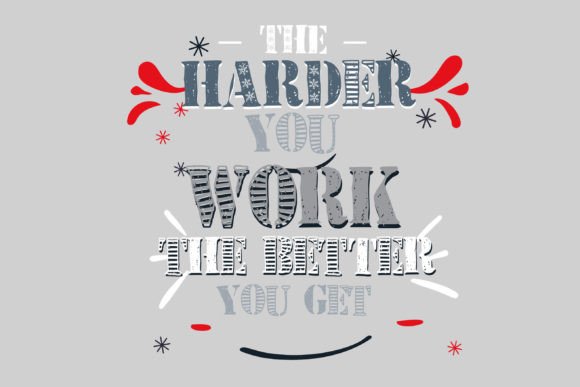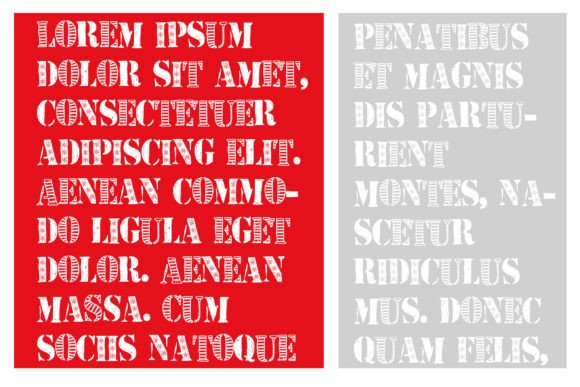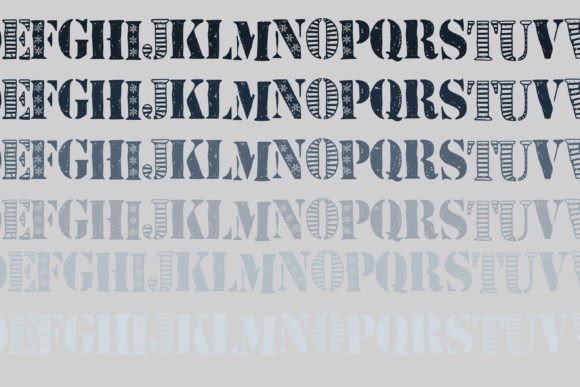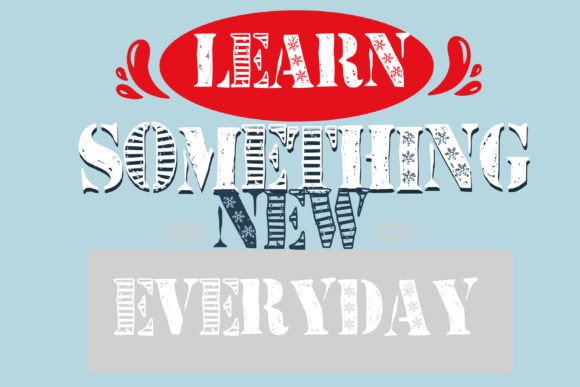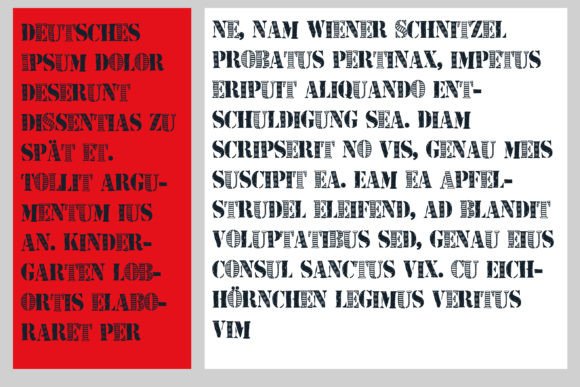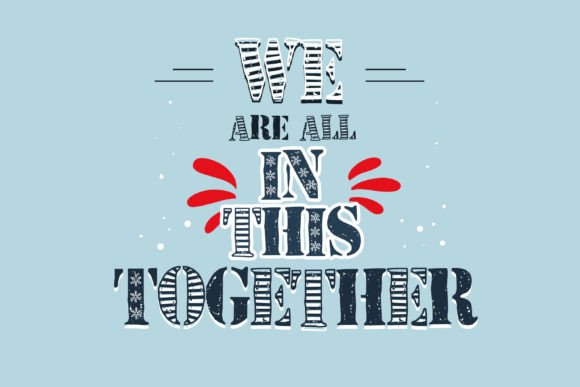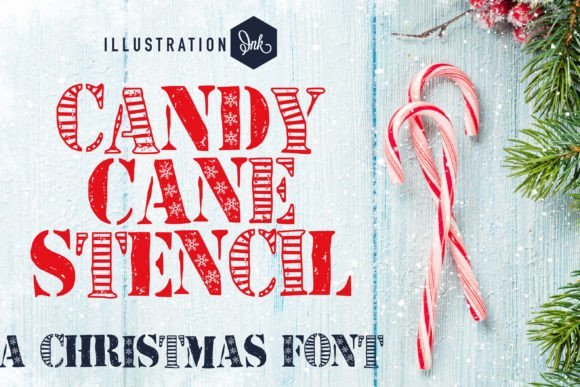
The Sweetest Addition to Your Designs: Candy Cane Font
Have you ever found yourself rummaging through your favorite holiday decorations, only to stumble upon a vintage candy cane that sparks a wave of nostalgia and creativity? For designers, this feeling is not uncommon. It’s a moment that reminds us of the importance of adding a personal touch to our work. And what better way to do so than with the enchanting Candy Cane Font, a hand-crafted serif font that features a stencil font with candy cane lettering and Christmas details?
This delightful font is perfect for designers looking to add a whimsical and festive touch to their projects. Its unique design makes it an ideal choice for invitations, greeting cards, and other holiday-themed materials. With the Candy Cane Font, you can create a sense of nostalgia and wonder that will leave a lasting impression on your audience.
Candy Cane Font Key Features
- Font Family: Candy Cane is a display font family, consisting of multiple weights and styles.
- Unique Characteristics: The Candy Cane font features a distinctive, striped design, with red and white stripes that evoke the classic Christmas candy.
Candy Cane Font Review
Overall, I think the Candy Cane Font is a fun and festive addition to any design project. ✨ Here are some of the things that really stand out to me:
- Unique and playful feel – This font is perfect for holiday-themed designs or anything that needs a bit of whimsy.
- Good for titles and headings – The bold, bright lines of the Candy Cane Font make it a great choice for grabbing attention and setting the tone for your design.
- Good legibility – Despite its playful feel, the Candy Cane Font is still easy to read, even at smaller sizes.
- Limited versatility – The Candy Cane Font is best suited for holiday-themed designs or anything that needs a playful feel. It may not be the best choice for more serious or formal designs.
- Can be overwhelming in large quantities – While the Candy Cane Font is great for titles and headings, it can be overwhelming if used too liberally throughout a design.
Overall, I think the Candy Cane Font is a fun and effective choice for the right design project. With a bit of restraint and careful use, it can add a lot of personality and whimsy to your work.
The Candy Cane font is perfect for:
Creating festive holiday graphics and designs.
Adding a playful touch to branding and marketing materials.
Designing children’s party invitations and decorations.